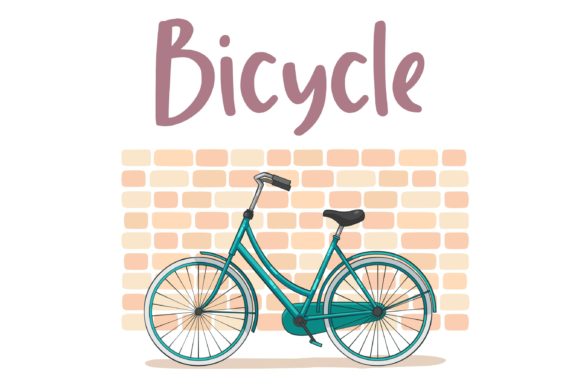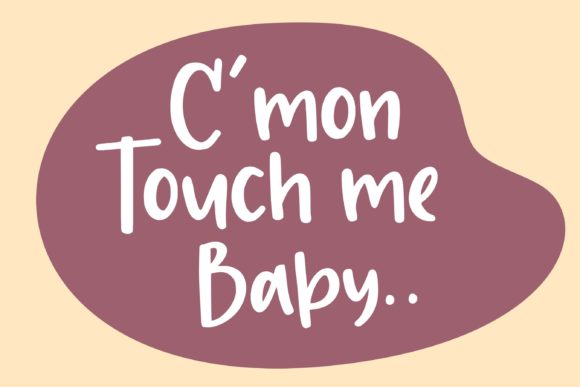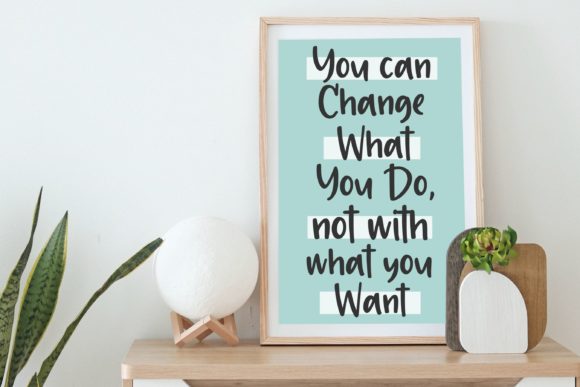
Introduction to Chalkier Font
As a designer, there’s nothing quite like that moment when a project starts to come together – the right colors, the perfect typography, and a dash of creativity that sets it all apart. For many of us, that spark of inspiration often begins with a font that speaks to us, and today we’re shining the spotlight on the delightful Chalkier Font.
Whether you’re working on product packaging, branding, magazines, or even wedding invitations, this fun and quirky handwritten font is sure to bring a smile to your client’s face and set your design apart from the rest. With its free download option and transparent background, it’s the perfect addition to your design resource library.
What sets Chalkier Font apart is its high-quality design that’s perfect for any creative project. Its unique charm and character make it a valuable asset for designers looking to add a personal touch to their work. So, let’s dive in and explore the wonderful world of Chalkier Font and discover why it’s a must-have for any design enthusiast.
Key Features of Chalkier Font
- Unique, hand-drawn design suitable for creative projects
- High-quality font available for free download, ideal for designers and artists
- Transparent background option for seamless integration into designs
- Perfect for use in digital art, graphic design, and other creative projects
- Comes with a high-resolution design, ideal for print and web applications
Honest Review: Chalkier Font
I recently stumbled upon the Chalkier Font, a free download that caught my attention for its unique, hand-drawn style. As a designer, I’m always on the lookout for high-quality design resources to elevate my creative projects.
What works well: ✨ The Chalkier Font’s versatility is one of its strongest points. It’s perfect for use in digital designs, from social media graphics to presentations, and even works well for print materials like posters and flyers. The font’s transparent background makes it easy to layer over other design elements, giving you complete control over the final look.
What doesn’t work as well: ⚠️ The Chalkier Font’s limited character set may be a drawback for some designers. While it’s great for short text, it may not be suitable for longer passages or body text. Additionally, the font’s uniqueness can sometimes make it difficult to read, especially at smaller sizes.
Overall, I’d say the Chalkier Font is a solid addition to any designer’s toolkit. With its high-quality design and versatility, it’s a great resource for creative projects. Just be mindful of its limitations and use it wisely.
- Hand-drawn style
- Perfect for digital designs, print materials, and more
To get the most out of the Chalkier Font, consider using it on a transparent background or pairing it with other design elements to create a unique and eye-catching look. Experiment with different font sizes and colors to find the perfect balance for your creative project.
The Chalkier Font is ideal for a variety of design projects, including social media graphics, blog posts, and marketing materials. Its high-quality design and unique style make it a great addition to any creative project.